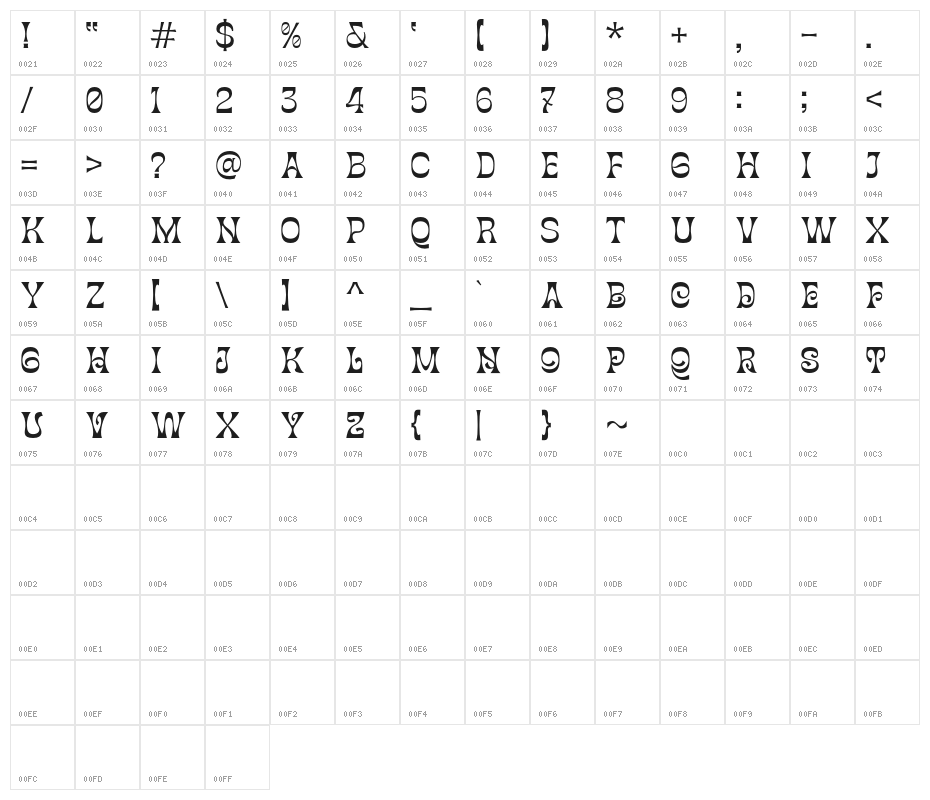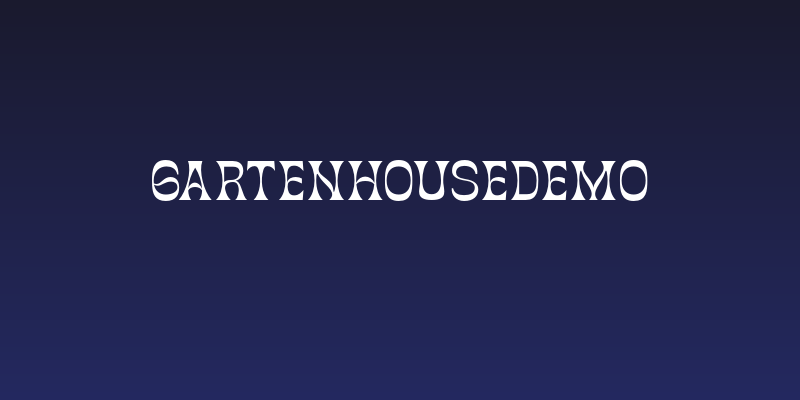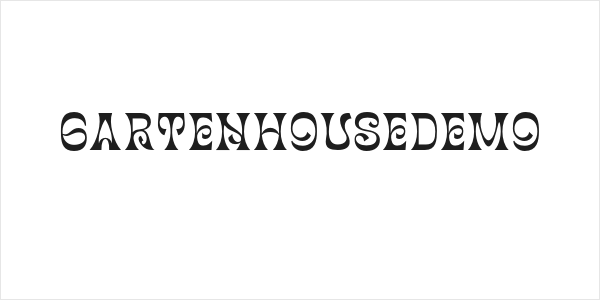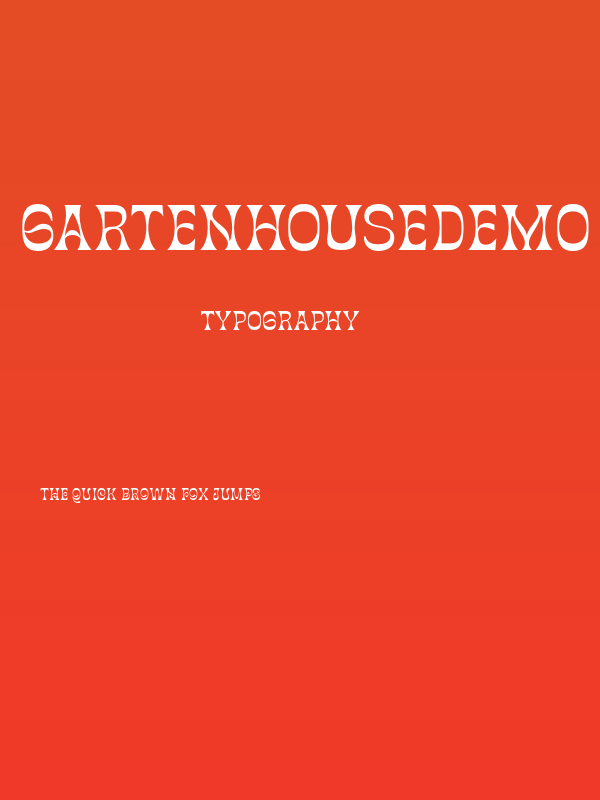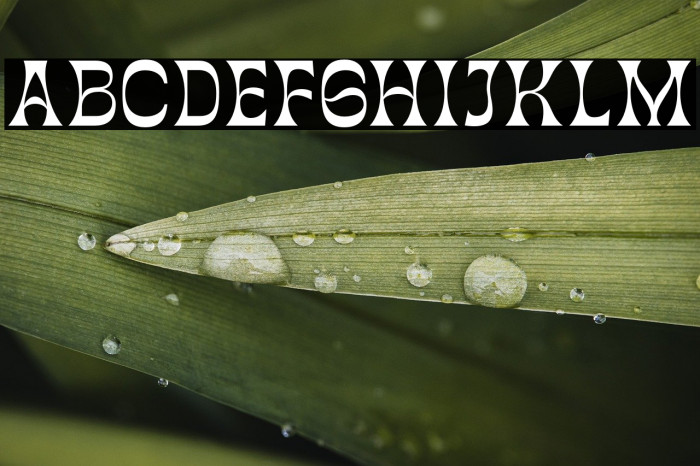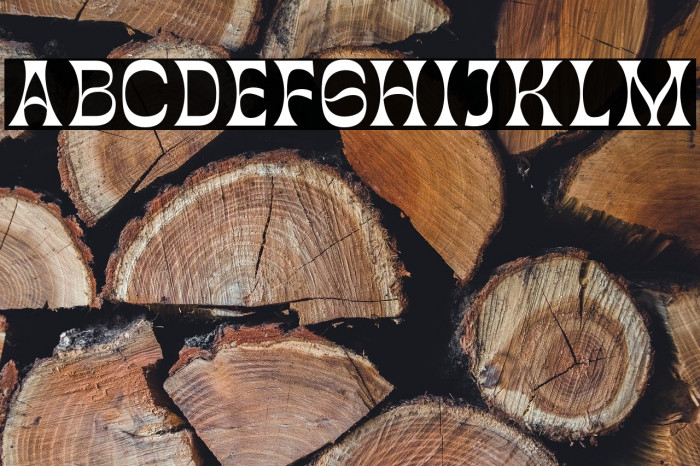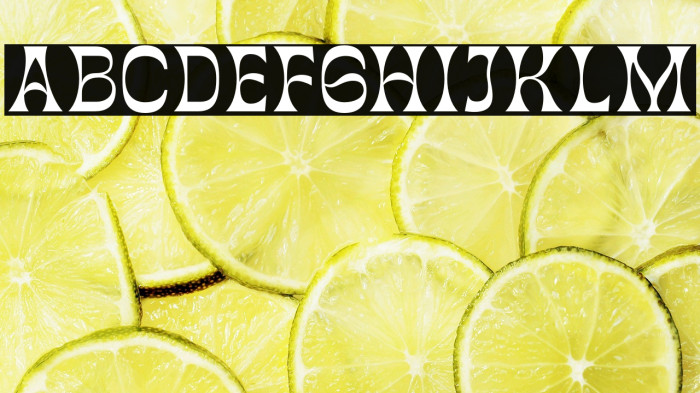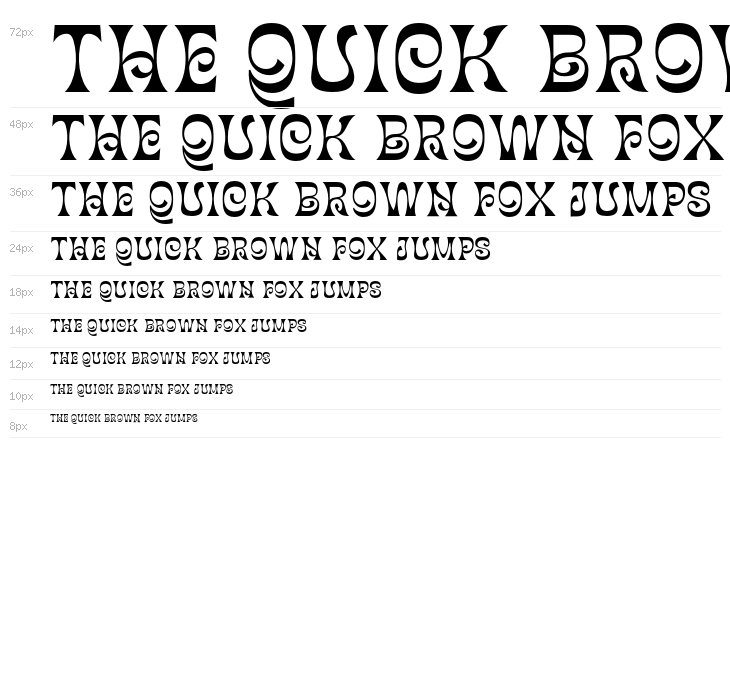
GartenHouseDemo Font
GartenHouseDemo Description
This font features a highly decorative and artistic style, characterized by its bold and intricate letterforms. Each character is designed with unique curves and swirls, creating a sense of movement and flair. The uppercase and lowercase letters maintain a consistent design theme, with exaggerated serifs and ornamental elements that give the font a whimsical and playful appearance. The numbers and special characters follow the same decorative approach, ensuring a cohesive look across all glyphs. This font stands out with its high contrast between thick and thin strokes, adding to its dramatic and eye-catching appeal.
| Proposed Projects | Ideal for creative projects such as posters, invitations, branding, and any design that requires a touch of elegance and artistic flair. |